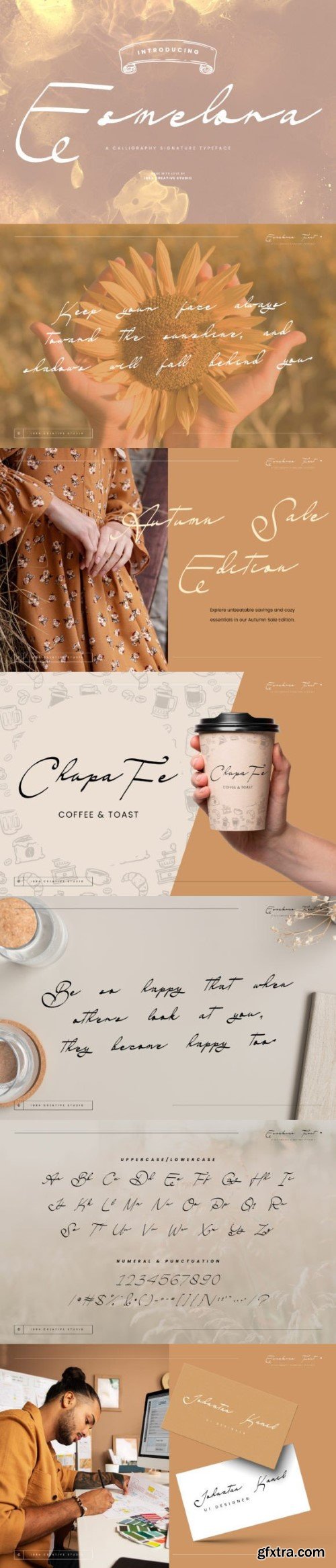
艾斯莫拉字体
Esmelora, a captivating calligraphy signature typeface, exudes elegance and refinement with its graceful strokes and fluid lines. Each letter is meticulously crafted to emulate the artistry of a hand-written signature, creating a sophisticated and personal touch. Esmelora’s delicate curves and stylish flourishes lend an air of timeless beauty to any design, making it an ideal choice for invitations, branding, and luxury-oriented projects. The typeface seamlessly blends traditional calligraphic elements with a modern sensibility, resulting in a harmonious balance that is both classic and contemporary.